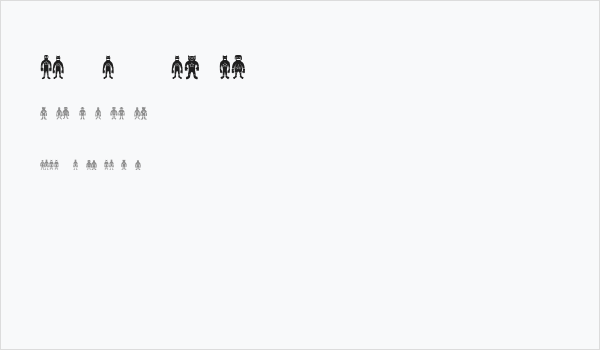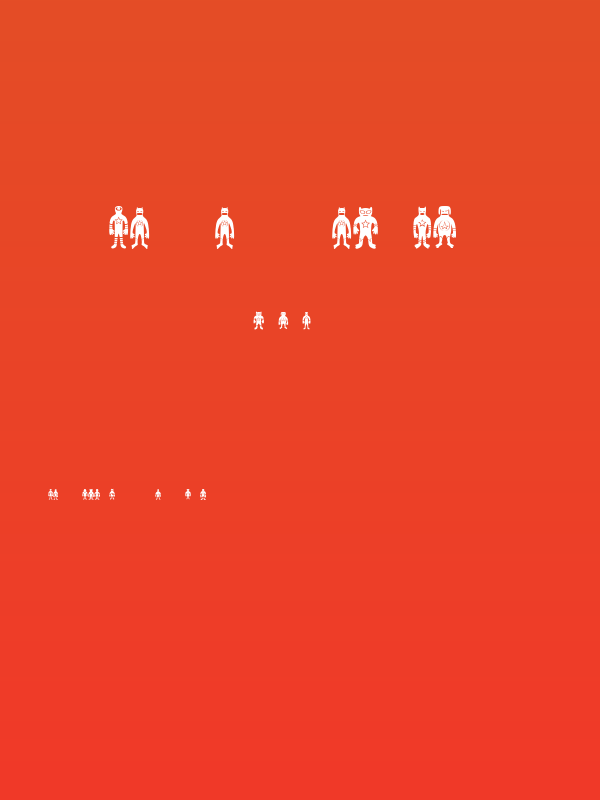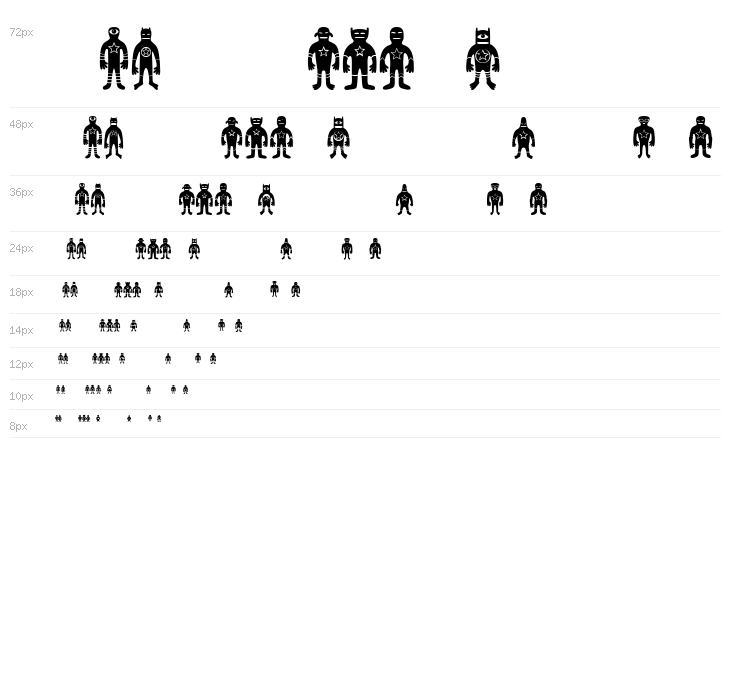
Heroez Regular Font
Heroez Regular Description
This unique font features stylized characters resembling superhero figures, each with distinct costumes and poses. The design is playful and imaginative, with each letter and number represented by a different superhero character. The figures are bold and striking, with a consistent use of black and white to create a strong visual impact. The font is highly decorative, making it ideal for creative projects that require a fun and engaging aesthetic. The characters are evenly spaced, ensuring readability while maintaining their whimsical appearance.
| Proposed Projects | Ideal for comic books, children's posters, themed party invitations, and playful branding projects. |